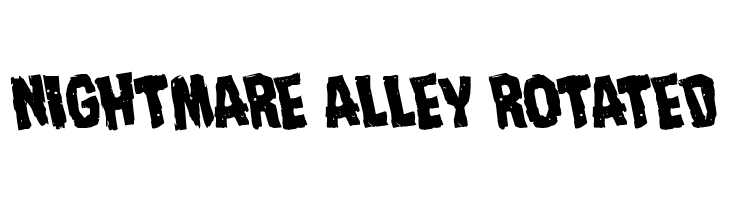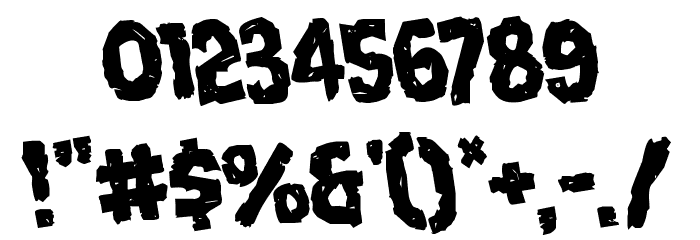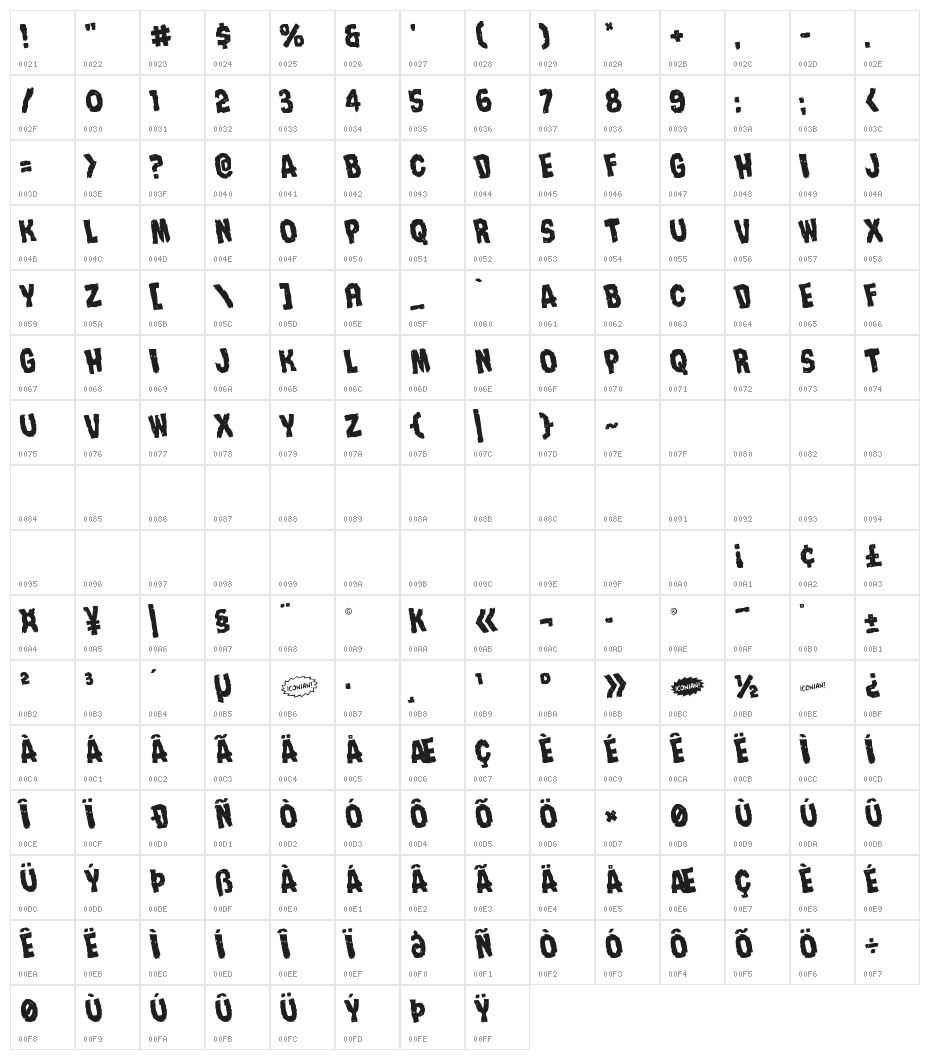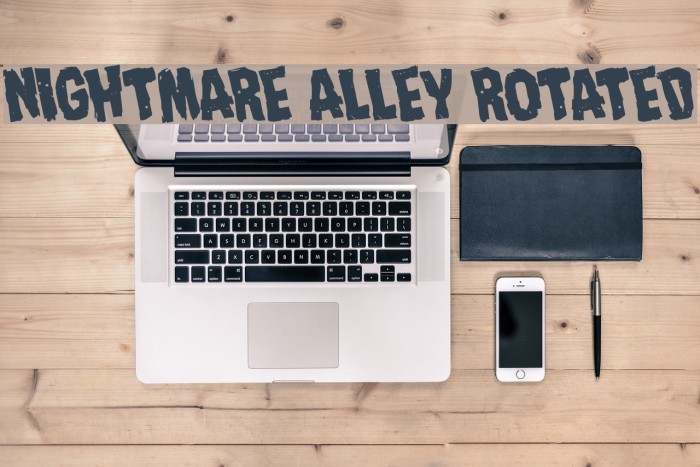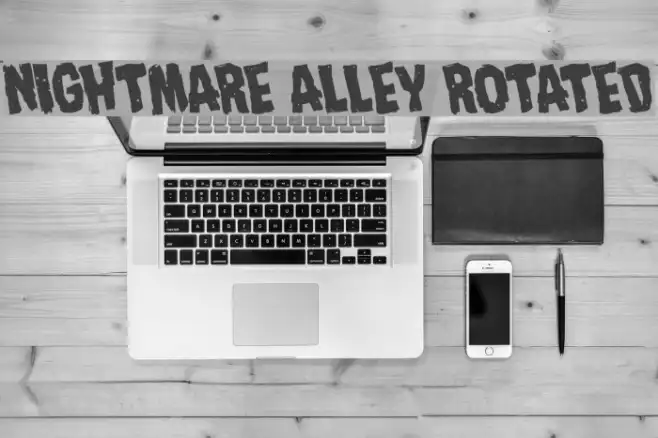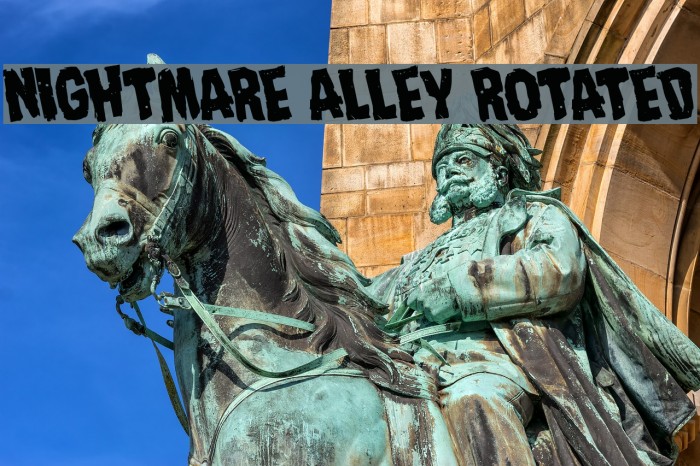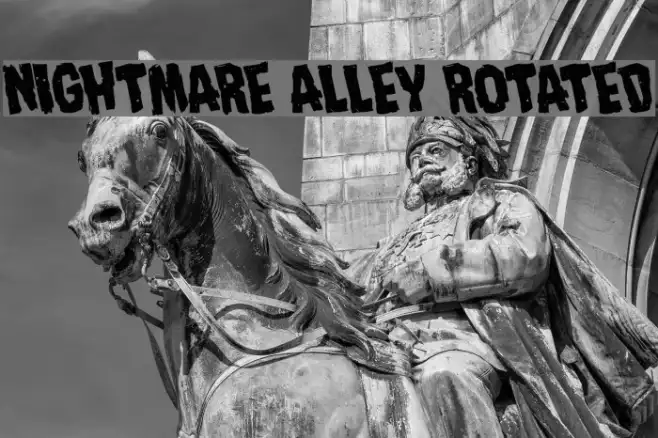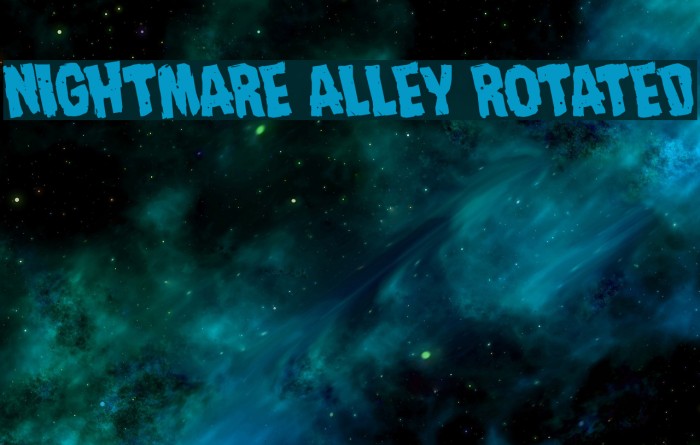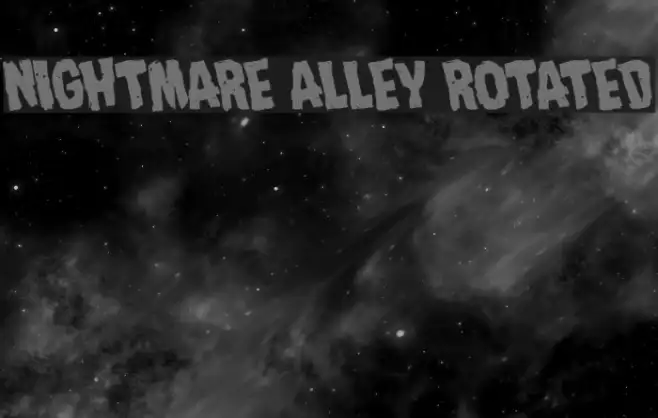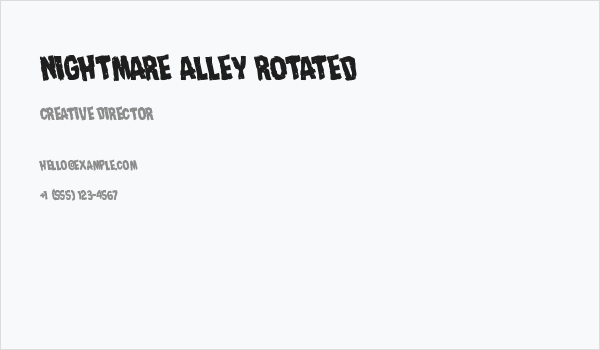
Nightmare Alley Rotated Font
Nightmare Alley Rotated Description
This font features a bold and distressed style, characterized by its rough, uneven edges and a hand-painted appearance. The letters are thick and heavy, conveying a sense of urgency and intensity. The uppercase and lowercase letters maintain a consistent rugged texture, adding to the font's dramatic and impactful look. The numbers and special characters follow the same distressed theme, ensuring a cohesive design throughout. This font is perfect for projects that require a gritty, raw aesthetic, such as horror-themed designs, posters, or album covers.
Proposed ProjectsIdeal for horror-themed designs, posters, album covers, and any project needing a raw, intense look.